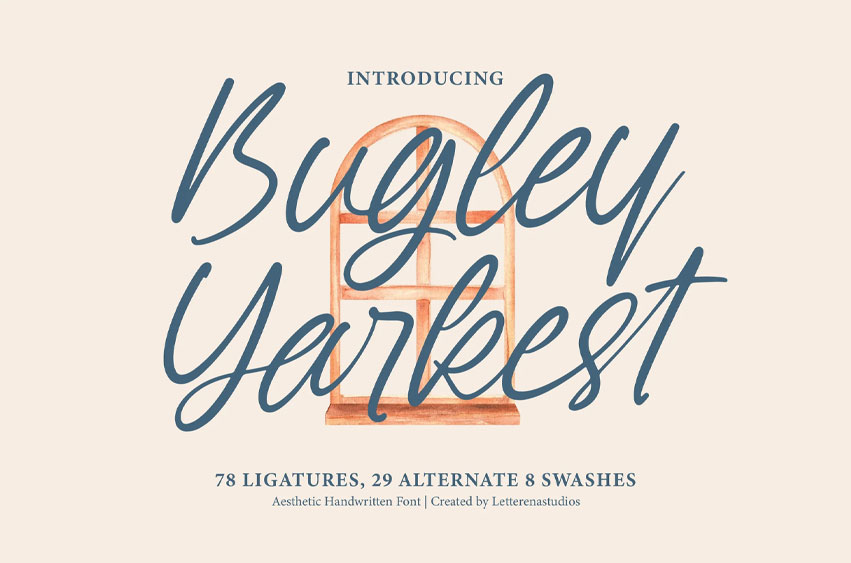
Bugley Yarkest Font
Bugley Yarkest Font is an aesthetic handwritten font with a natural brush flow and an elegant personal touch. Featuring 78 ligatures, 29 alternates, and 8 swashes, this typeface is perfect for logos, invitations, posters, packaging, branding, and editorial layouts.
With its smooth curves and organic design, Bugley Yarkest brings warmth and creativity to both digital and print projects, making it an ideal choice for expressive and sophisticated typography.